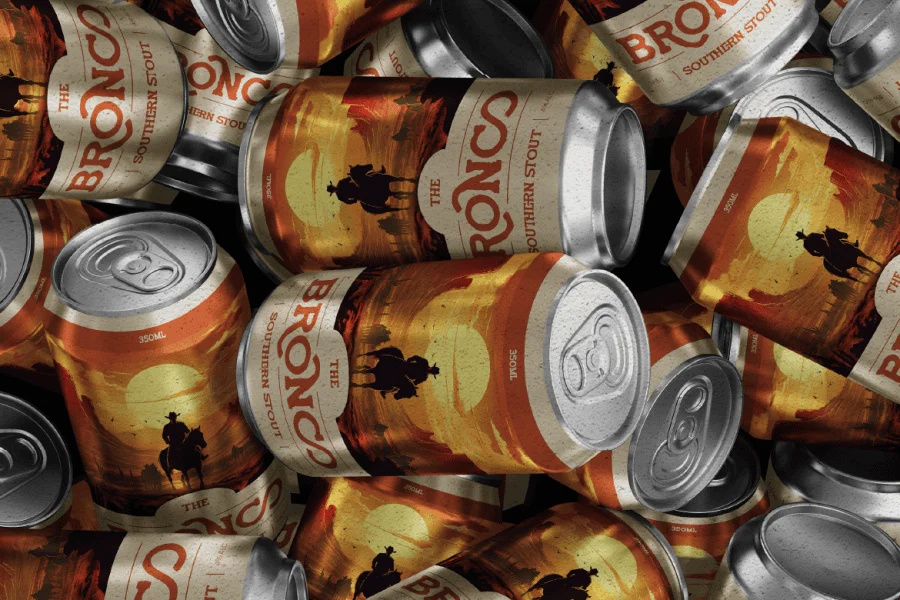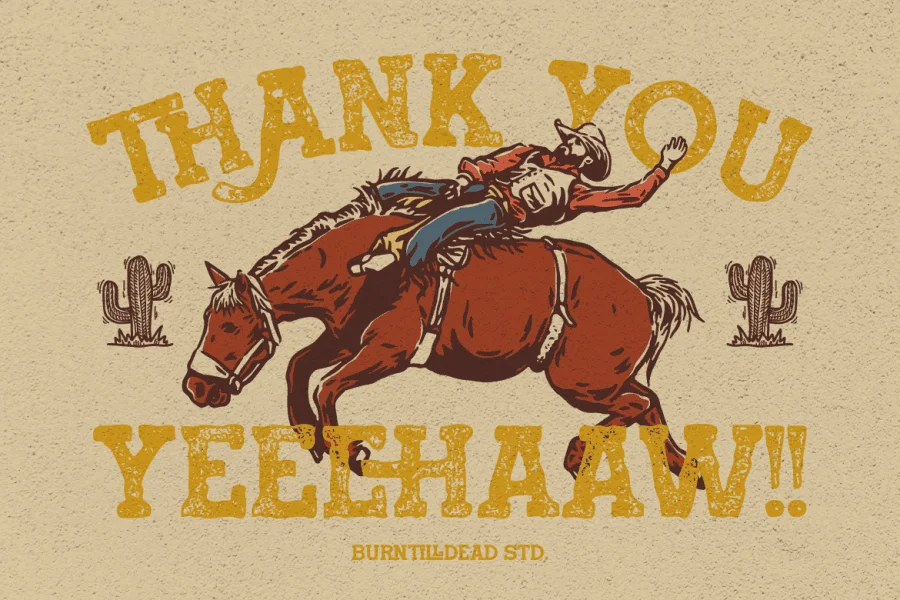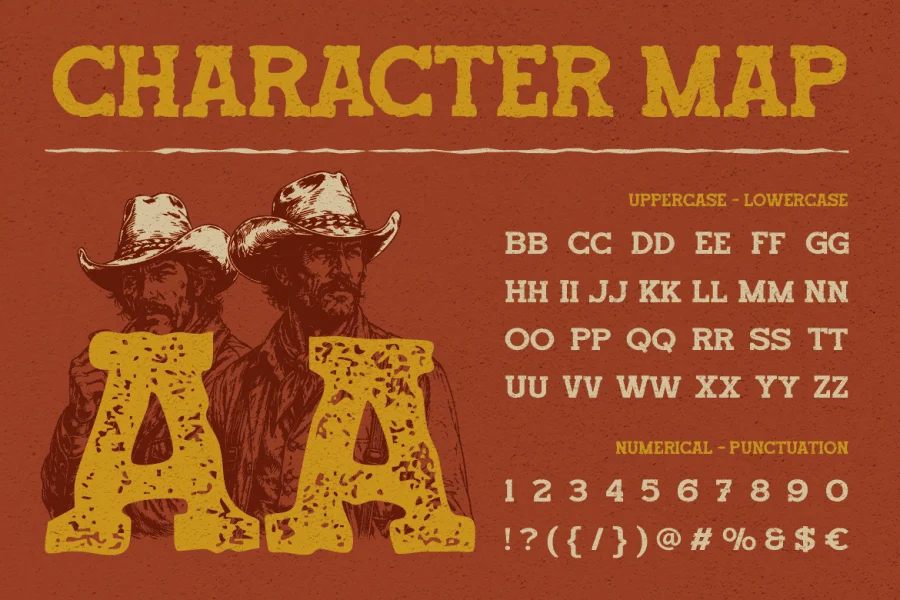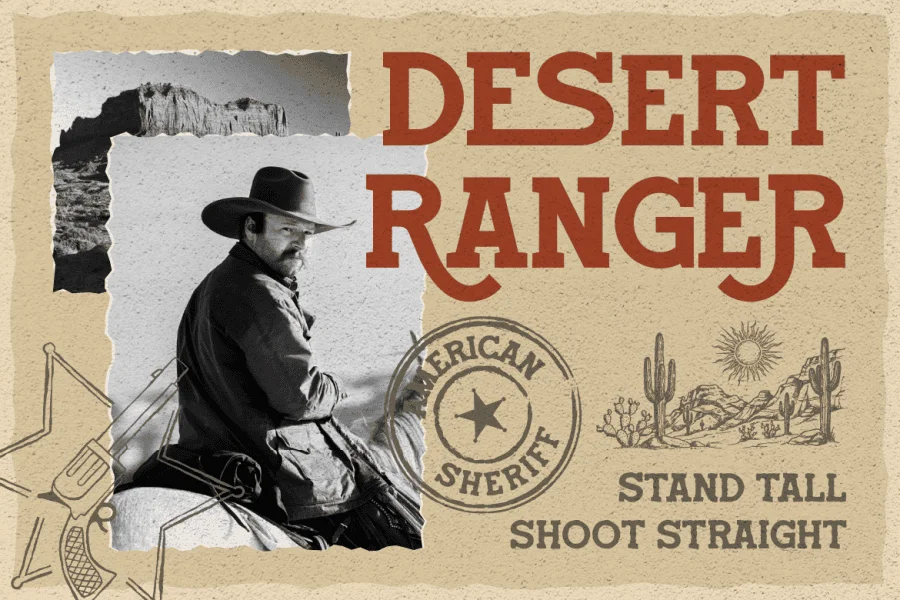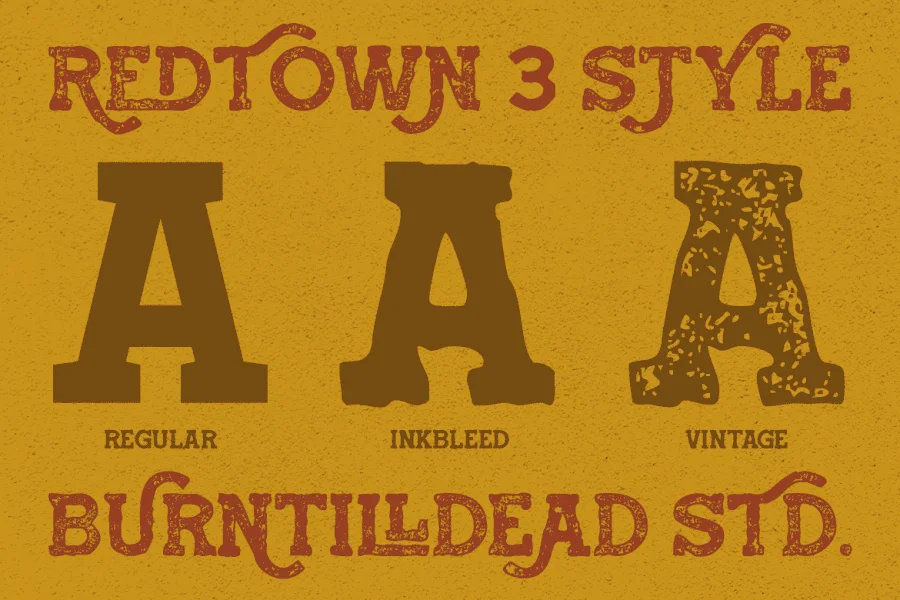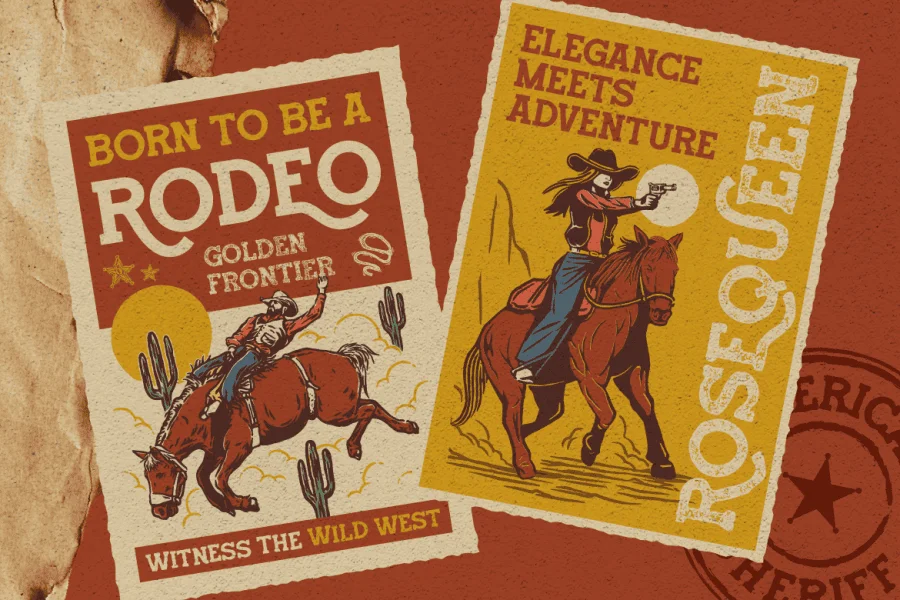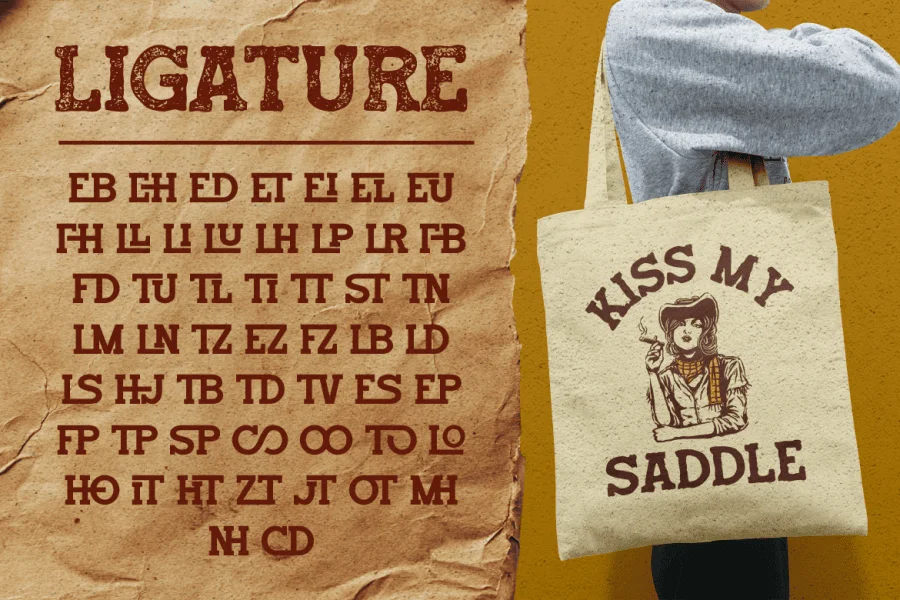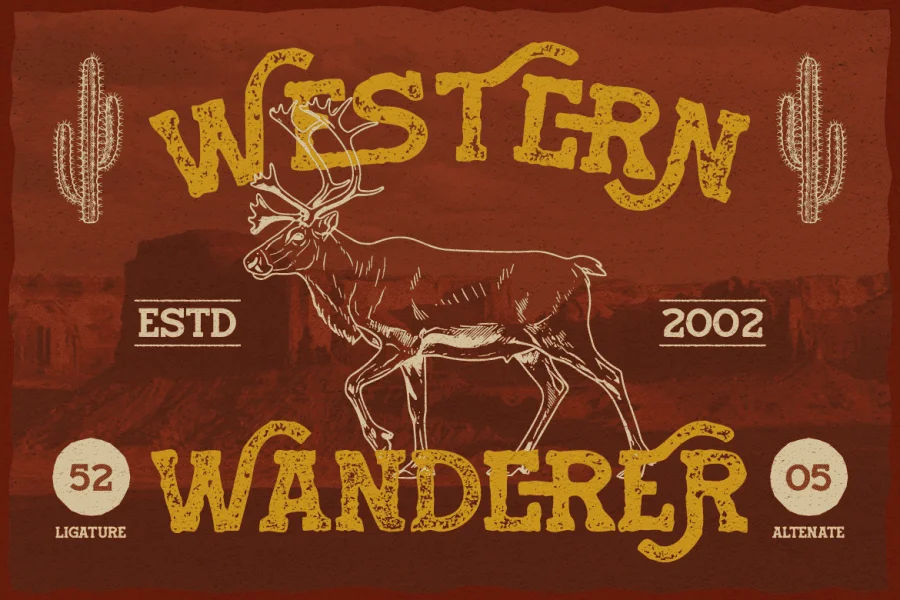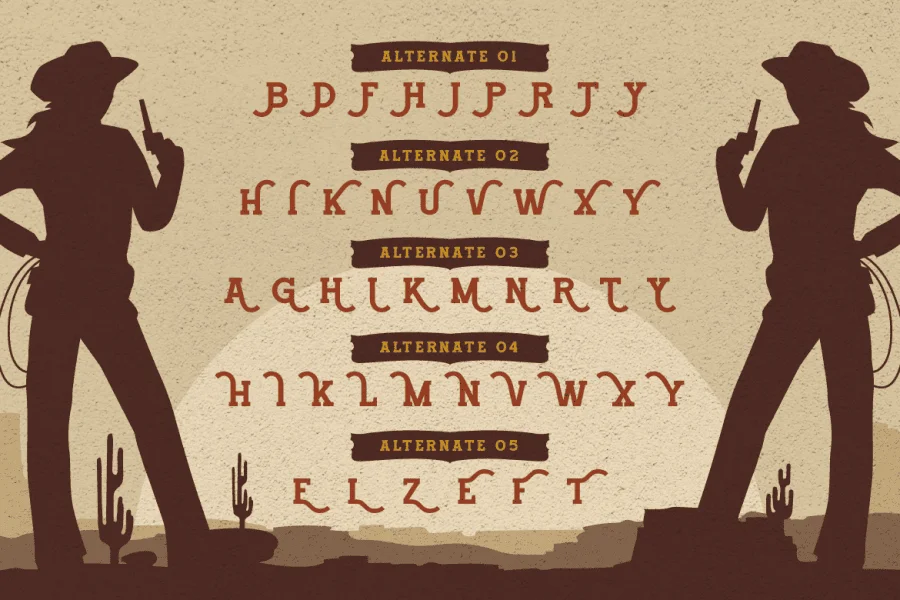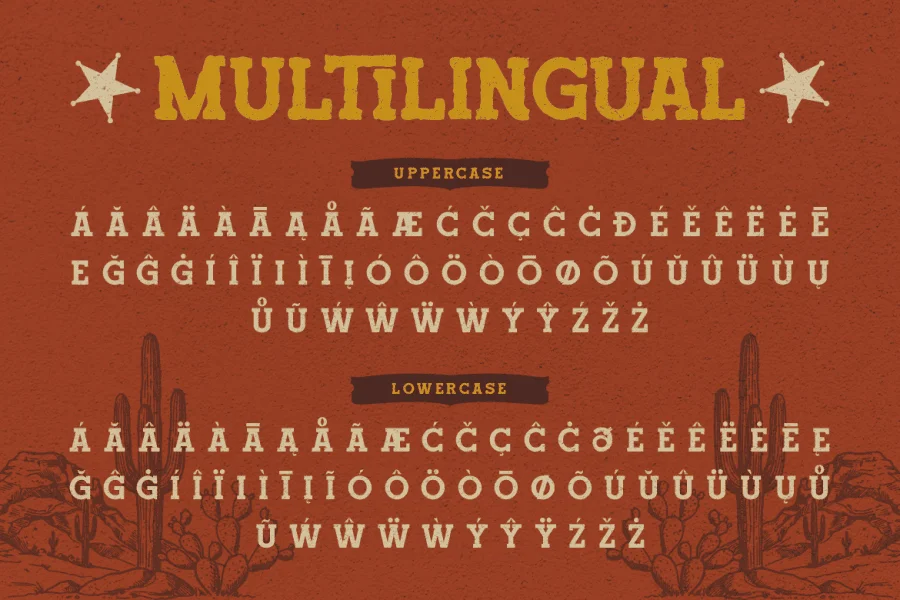
Perfect for:
- Western / Cowboy themed designs
- Vintage posters & retro branding
- Whiskey, beer & packaging design
- Logo & badge design
- Apparel & merchandise
- Rodeo, desert & adventure themes
- Editorial headlines & display typography